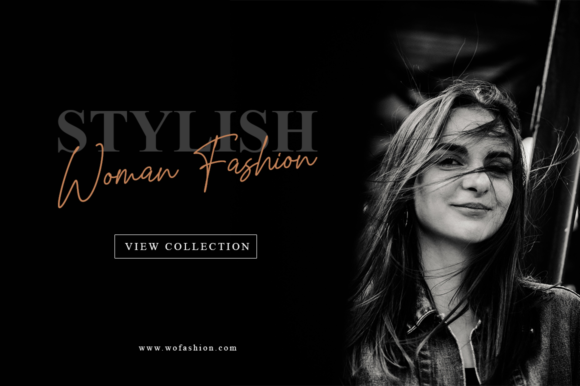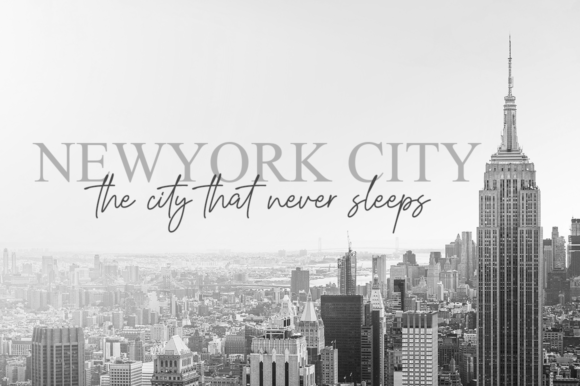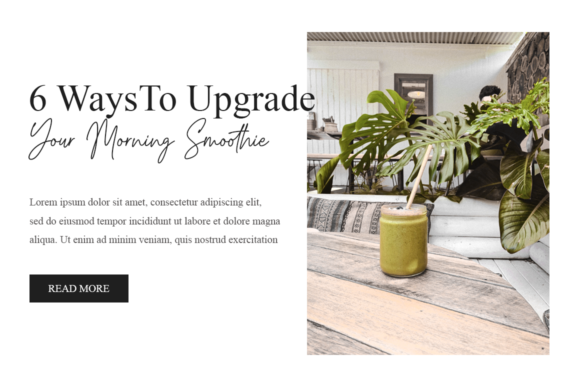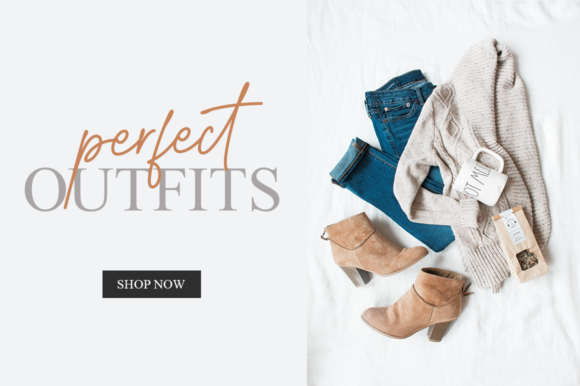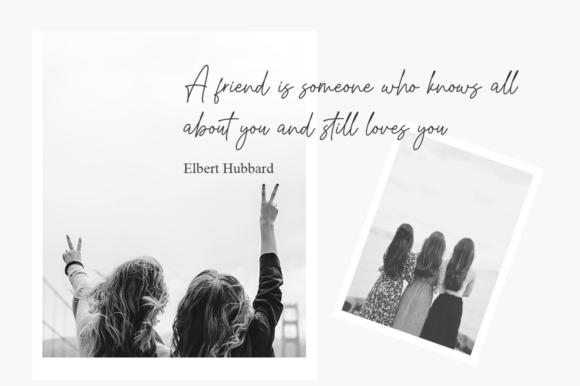
Introduction to Grayscale Font
Grayscale is a unique and elegant handwritten font.
Whether youโre looking for fonts for Instagram or calligraphy scripts for DIY projects, Grayscale will turn any creative idea into a true piece of art .
Key Features of Grayscale Font